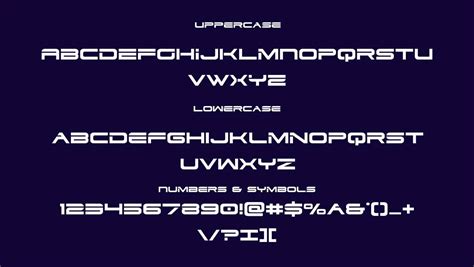
Ipseilase Dodgers Font: Free Download Guide
Ipseilase Dodgers Font: Your Free Download Guide
Hey, font lovers! Are you on the hunt for that iconic Ipseilase Dodgers font ? Well, you’ve landed in the right spot. This font is super popular, especially if you’re a fan of the Los Angeles Dodgers or just dig that classic, sporty vibe. In this guide, we’re going to dive deep into where you can find this font, how to download it, and even some cool ways you can use it in your projects. So, let’s get started!
What is the Ipseilase Dodgers Font?
First off, let’s chat about what makes the Ipseilase Dodgers font so special. This font is known for its bold, dynamic, and slightly retro feel, making it a favorite for sports-related designs and beyond. The Ipseilase Dodgers font is inspired by the font used in the official branding of the Los Angeles Dodgers. This means it carries a certain weight of history and a strong association with a beloved sports team. If you’re aiming to capture a sense of nostalgia , energy, or a vintage sports aesthetic, this font is a fantastic choice.
But it’s not just for sports enthusiasts! The font’s strong visual presence makes it versatile for a wide array of projects. Think about using it for logos, posters, headlines, and even social media graphics. Its distinct style can add a unique touch to your designs, helping them stand out from the crowd. When considering the Ipseilase Dodgers font , you’re not just choosing a typeface; you’re selecting a piece of design history that brings character and impact to your work. It’s a great way to inject some personality and visual interest into any project that needs a bit of a sporty or retro flair.